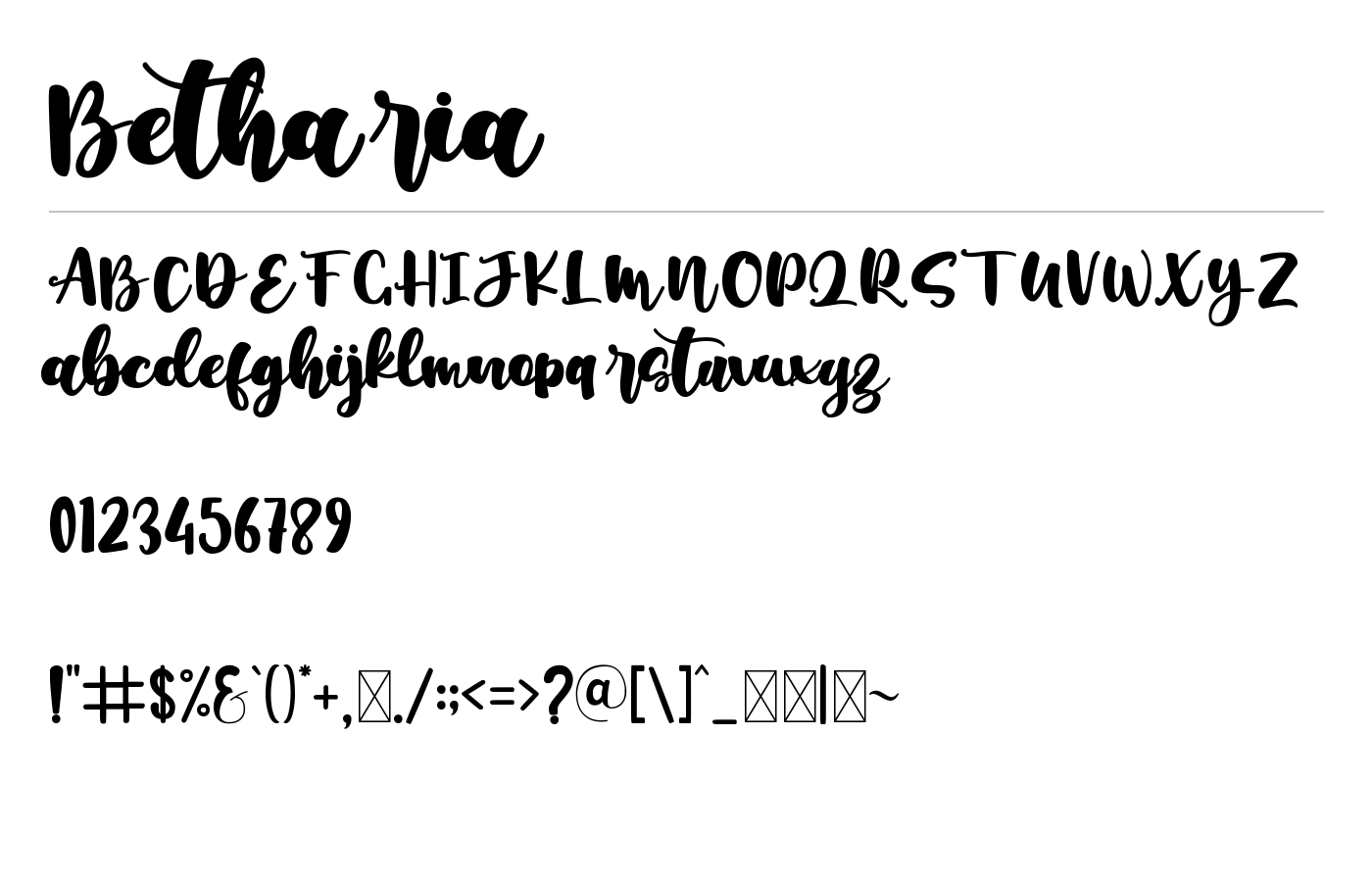
Betharia is a bold and playful script font with a hand-drawn feel, featuring smooth, rounded strokes and lively, connected letterforms that give it an inviting and friendly personality. Its thick weight and energetic style make it ideal for eye-catching headlines, branding, invitations, and creative projects that want to convey warmth and approachability. This font works best in designs seeking a personal, informal touch with a modern handwritten charm.
Betharia Font
About Betharia Font